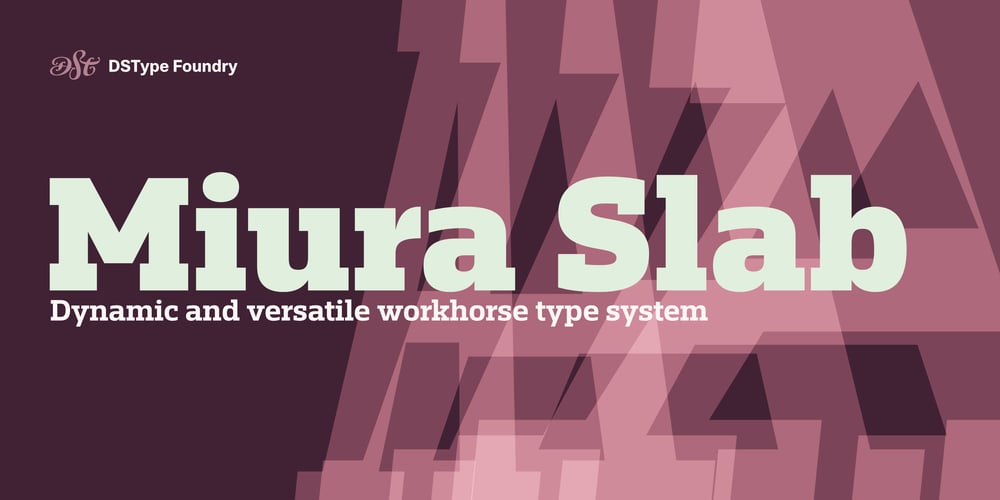
Miura Slab Font Family was designed by Dino dos Santos, Pedro Leal and published by DSType. Miura Slab contains 100 styles and family package options. Introducing Miura Slab, the bold companion to the Miura type family designed to elevate your typography. With a robust slab serif design, Miura Slab enhances the dynamic capabilities of the original Miura, offering exceptional versatility and impact. Its strong, angular forms push the boundaries of traditional slab serif typefaces, creating a unique and powerful visual presence. Available in a comprehensive range of weights and widths, Miura Slab draws inspiration from the enduring elegance of mid-century Italian design. Miura Slab is set to transform your design projects with unmatched style and functionality.